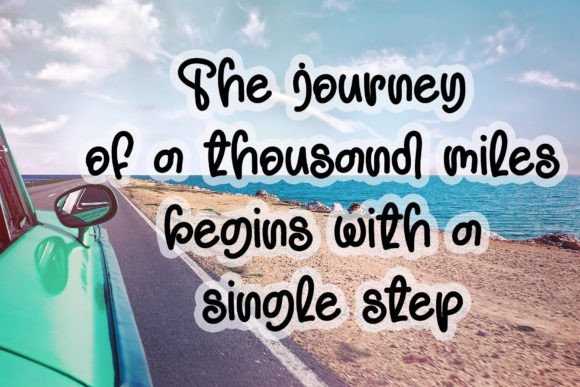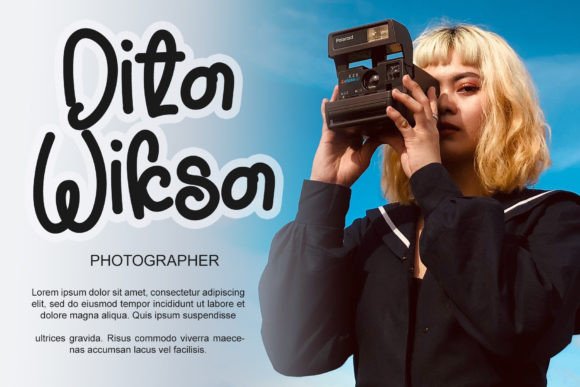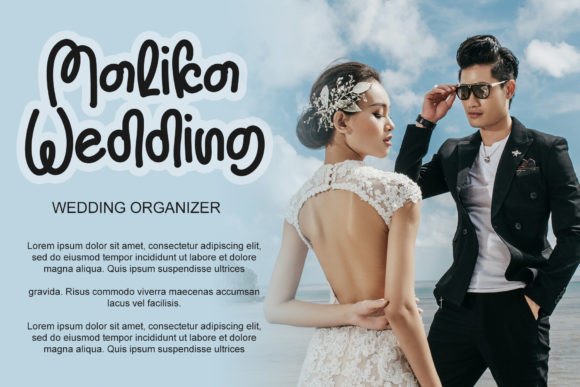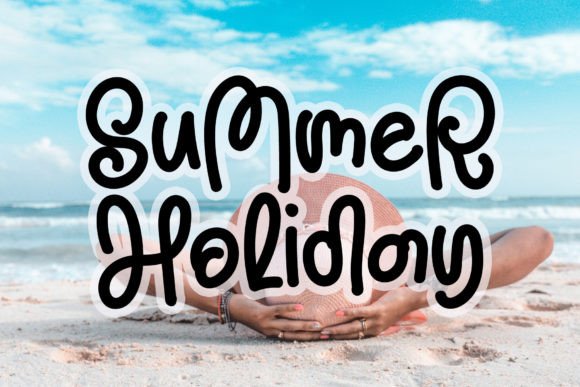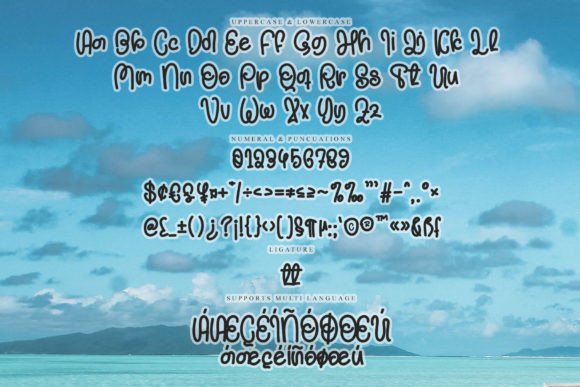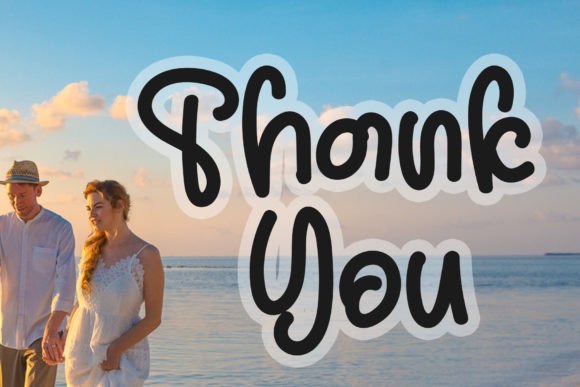
Introduction to Single Brush Font
Have you ever found yourself in the midst of a creative project, staring at a blank page or screen, and suddenly a burst of inspiration hits you? For designers, those moments of clarity can be a treasure trove of ideas and possibilities. One such moment led to the discovery of the Single Brush Font, a delightful display font that adds a touch of whimsy to any design.
This charming font is a game-changer for designers looking to add a dash of fun to their projects. With its quirky charm and PUA encoding, it’s perfect for creating high-quality designs that pop. Whether you’re working on a children’s themed design or a creative project that requires a bit of personality, the Single Brush Font is a valuable resource that’s sure to bring your vision to life.
Key Features of Single Brush Font
- High-quality design resource ideal for creative projects, with a unique, hand-painted style.
- Includes a single font file, perfect for designers who want to add a touch of elegance to their work without clutter.
Honest Review: Single Brush Font
As a designer, I’ve worked with my fair share of fonts, and I’m excited to share my thoughts on the Single Brush Font. This font has been gaining popularity among designers, and for good reason.
- High-quality design: The Single Brush Font features smooth, hand-drawn strokes that give it a unique and professional look.
- Limited character set: While the font has a beautiful design, its character set is relatively limited, which may make it less suitable for longer text-based projects.
- No bold or italic styles: The font only comes in regular weight, which may not be ideal for designs where bold or italic text is necessary.
Single Brush Font
Tips for Getting the Most Out of the Single Brush Font
To get the most out of the Single Brush Font, try using it in combination with other design elements, such as images or graphics, to create visually appealing and engaging designs. You can also experiment with different font sizes, colors, and styles to add depth and interest to your projects.
The Single Brush Font is ideal for use in a variety of creative projects, including:
- Infographics and data visualizations
- Marketing materials, such as brochures and flyers
- Graphic design and illustration